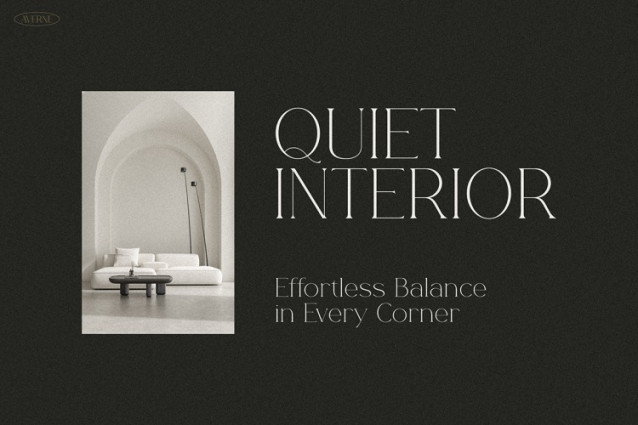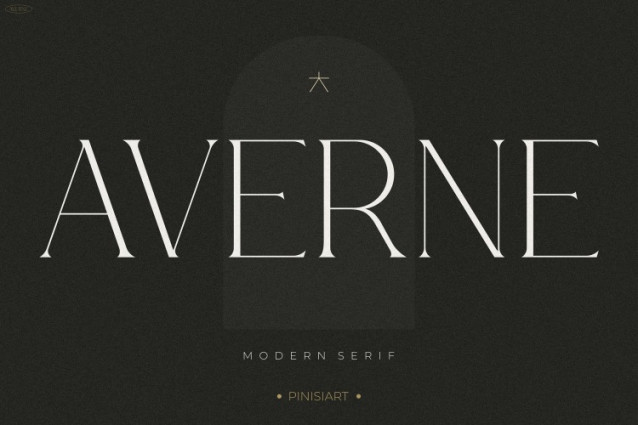
Averne Font
Averne Font immediately elevates any design with its refined elegance and modern appeal. This high-contrast serif font combines timeless sophistication with clean, minimal lines, creating a harmonious balance between beauty and function. As a result, it doesn’t just look attractive—it enhances your content’s message. Whether you’re designing for digital platforms or print media, Averne adds clarity, character, and charm to every element it touches.
To begin with, Averne delivers a structured yet soft visual presence. Its editorial roots give it a classic feel, while its sleek details make it perfect for modern branding. Moreover, its sharp serifs and well-spaced letters ensure great readability, even in smaller formats. Thanks to its thoughtful design, it adapts effortlessly across digital screens and printed materials.
For instance, in an interior-themed layout, Averne reflects the calm and composed style of the space. On a business card, it immediately communicates professionalism and trust. Similarly, when used on skincare packaging, the font expresses luxury, purity, and attention to detail. Therefore, regardless of the application, Averne supports your design with consistency and sophistication.
In addition, Averne keeps your layout visually balanced, allowing other elements to shine without competition. Its subtle curves and high-contrast forms guide the eye, which makes it an ideal choice for designers who want a quiet yet powerful typographic presence.